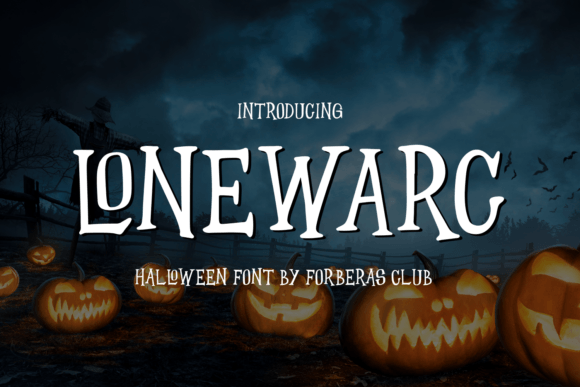
Unleash the power of Lonewarc, the captivating display font that will ignite your creativity and leave an enduring impression on your audience.
Embark on a whimsical journey with Lonewarc, where each letter dances with a vibrant energy, bringing your designs to life. This enchanting font is a symphony of elegance and playfulness, perfectly suited for crafting heartwarming baby books that will be cherished for a lifetime.
Welcome to a world where your imagination takes flight. Lonewarc's playful nature breathes life into every project, from whimsical logos that spark joy to captivating social media branding that captivates your audience. Let the bouncy rhythm of Lonewarc guide you, transforming your designs into captivating masterpieces.
Step into a realm of endless possibilities, where Lonewarc's versatility knows no bounds. Its charming personality adds a touch of magic to headings, making them dance with delight. Create eye-catching packaging that whispers tales of adventure and dreams. Unleash your creativity with Lonewarc, the font that transforms the ordinary into the extraordinary.
Embrace the artistry of Lonewarc, where every letter is a work of art. Its unique and beautiful touch adds a captivating dimension to your designs, making them truly unforgettable. Dive into a world of enchanting possibilities with Lonewarc, where your imagination becomes reality.